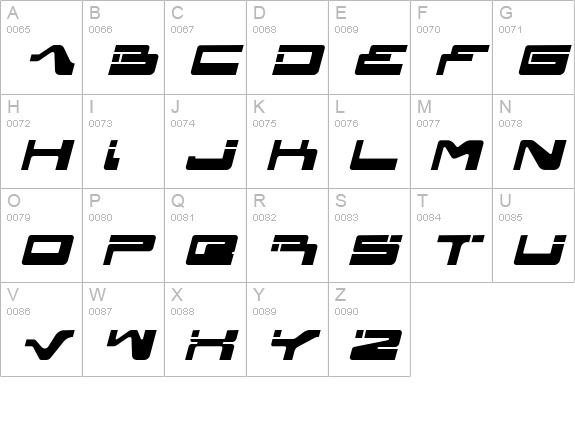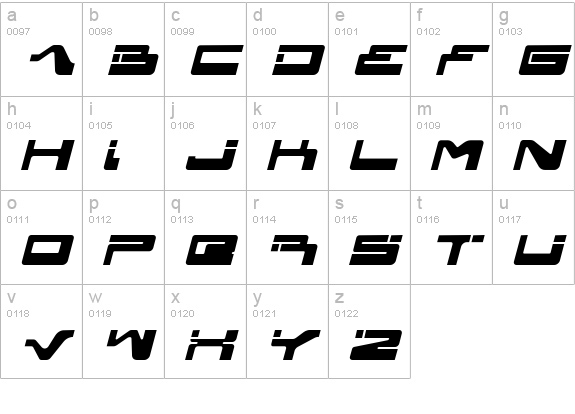
Yagiza font is a modern and sleek typeface that exudes elegance and sophistication. Its clean lines and stylish design make it perfect for a wide range of design projects, from branding to editorial layouts. With its unique character and versatility, Yagiza font adds a touch of class to any design. The best part? Yagiza font is completely free to download at FontsMarket.com. This means you can elevate your projects with this premium font without breaking the bank. Whether you're a designer looking to add a fresh new font to your collection or a business owner in need of a polished look for your branding, Yagiza font is the perfect choice. Don't miss out on this opportunity to enhance your designs with Yagiza font. Download it for free today at FontsMarket.com and see the difference it can make in your projects.